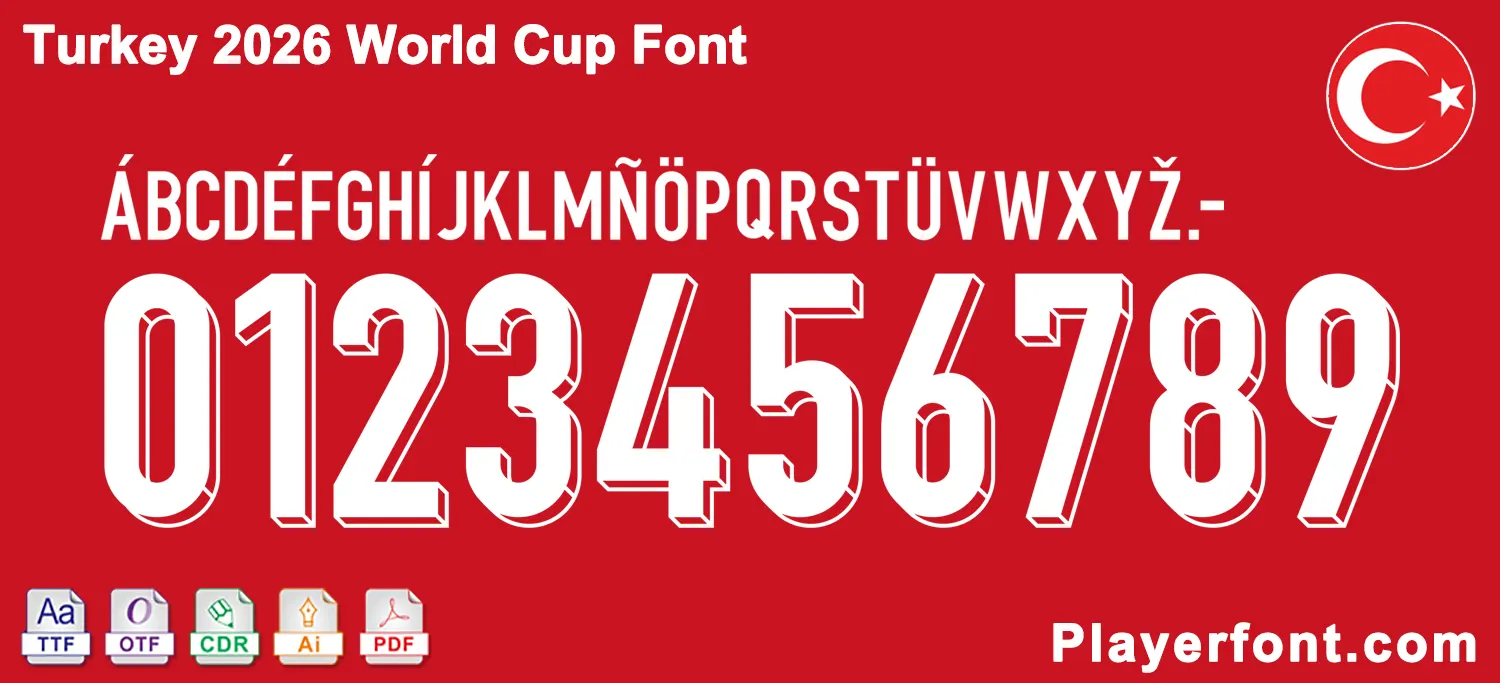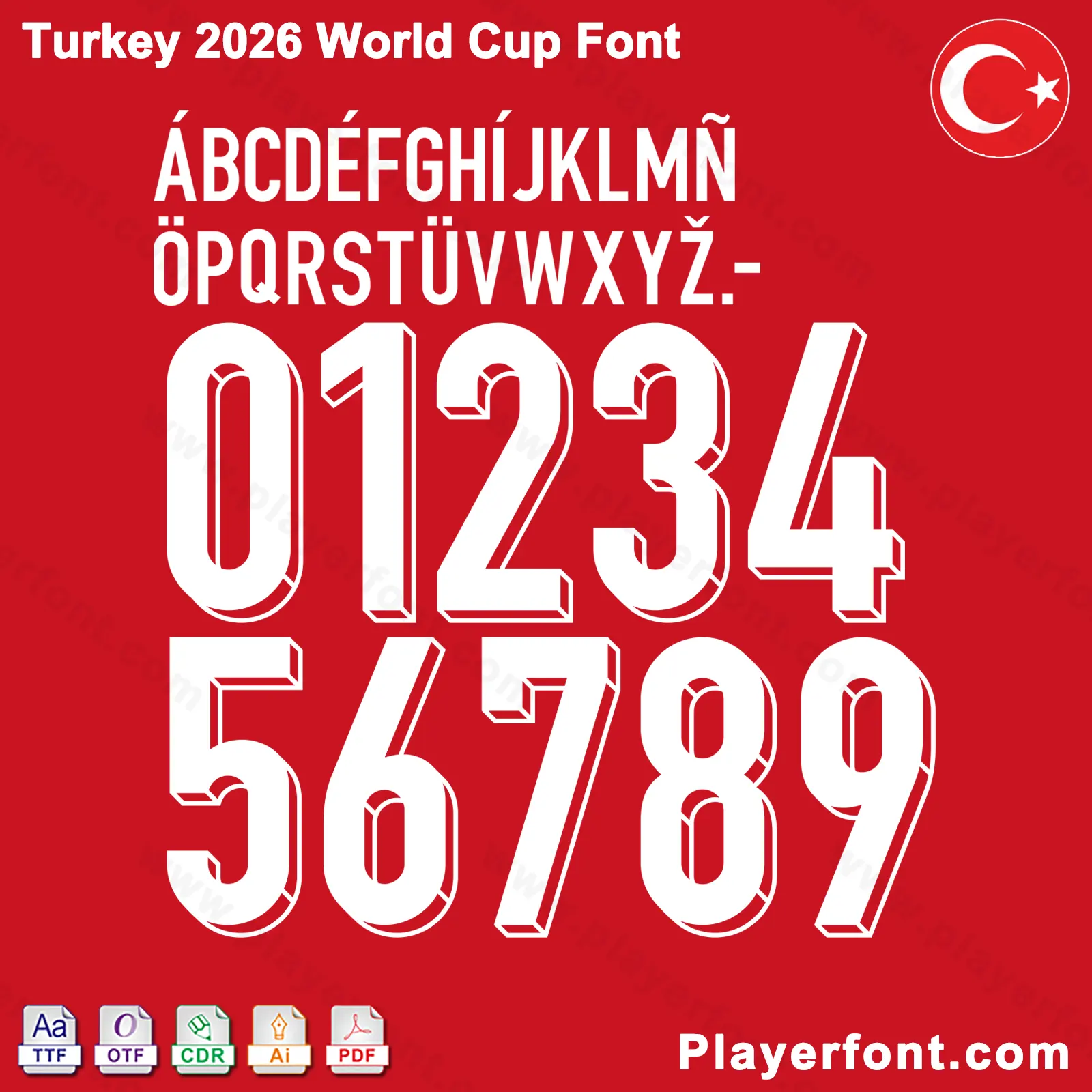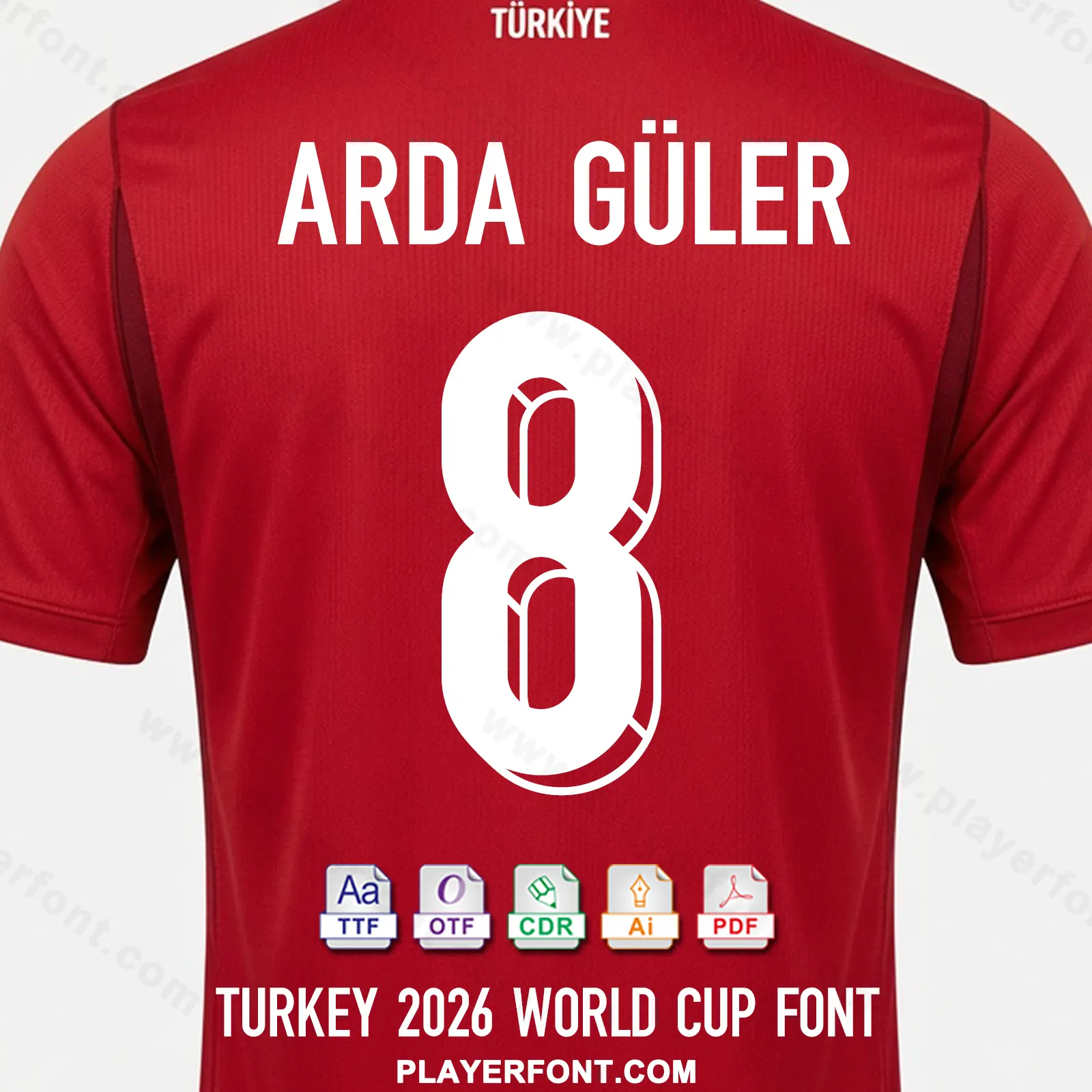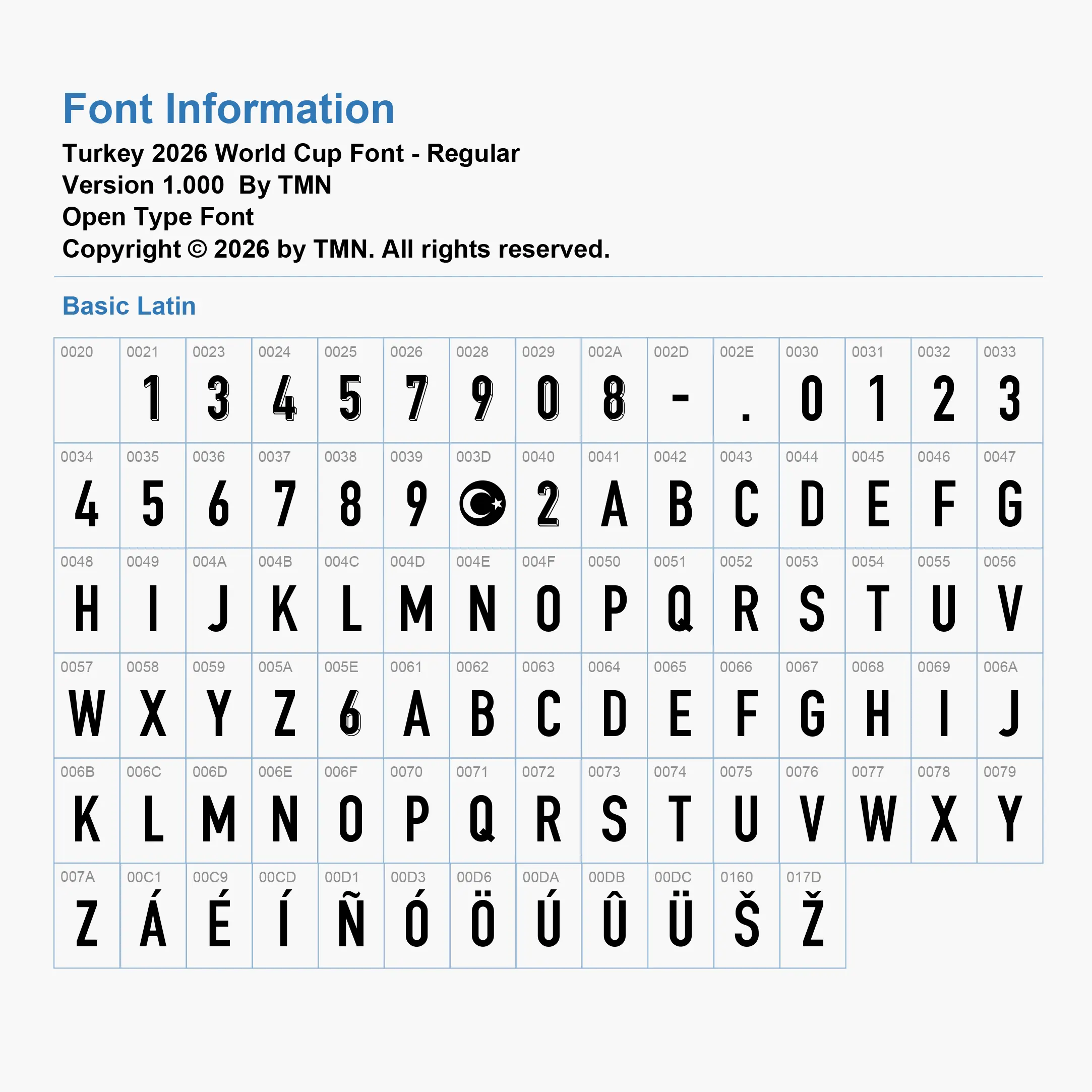
Elevate your sports jersey mockups, football custom graphics, and vector apparel printing projects with the high-quality Turkey World Cup 2026 Font Download. Masterfully engineered by Playerfont.com, this high-performance typography set replicates the official-style numbers and clean lettering featured on the pitch for the upcoming FIFA 2026 international tournament campaigns.
Key Typography Features & Character List:
This typography pack is fully optimized to support international player rosters and diverse numbering layouts:
- Basic Latin Set: Contains the complete A-Z uppercase character set, tall condensed block letters, numbers (0-9), periods, and hyphens.
- Advanced International Accent Support: Includes a complete set of accents (such as Á, É, Í, Ñ, Ó, Ö, Ú, Û, Ü, Š, Ž) ensuring flawless rendering for global football stars and localized Turkish naming requirements (such as Güler, Çalhanoğlu, etc.).
- Authentic Visual Details: The jersey numbers feature a premium 3D block-shadow isometric extrusion style that provides incredible depth and visibility on the pitch.
| Design Feature | 3D Isometric Extrusion with Clean Block Shadow Layout |